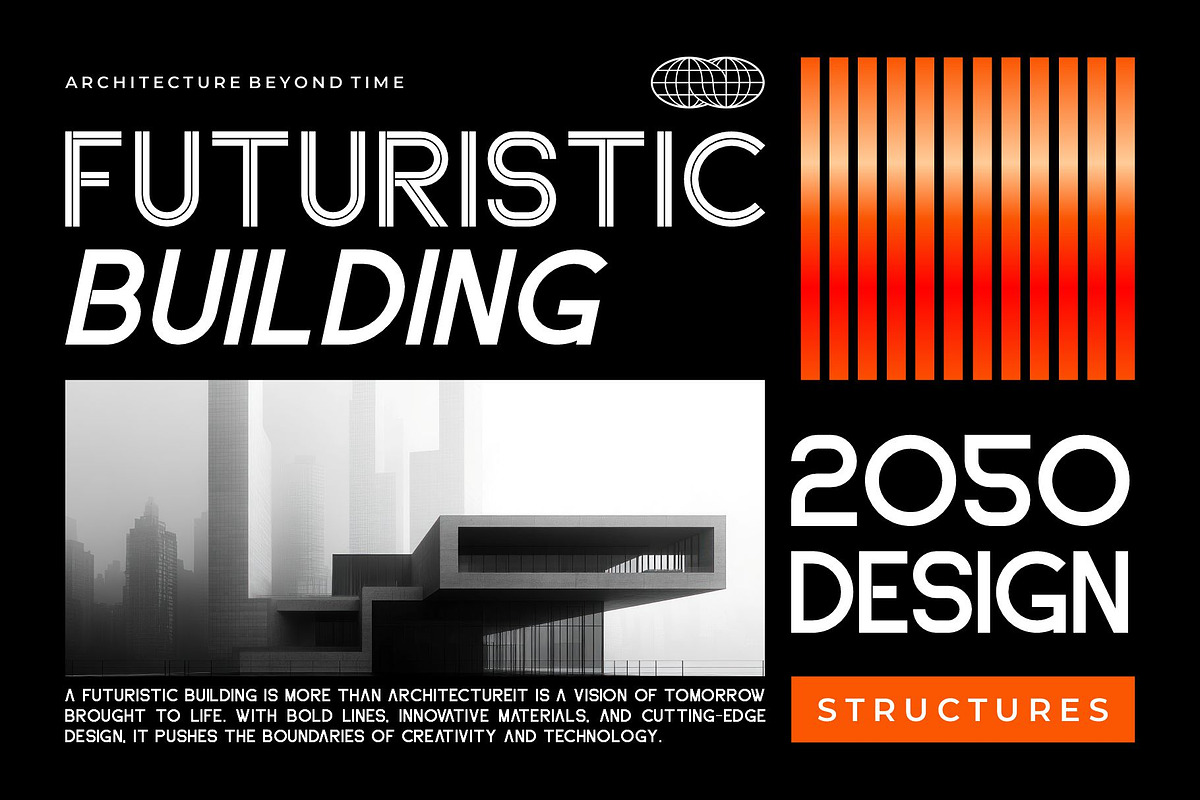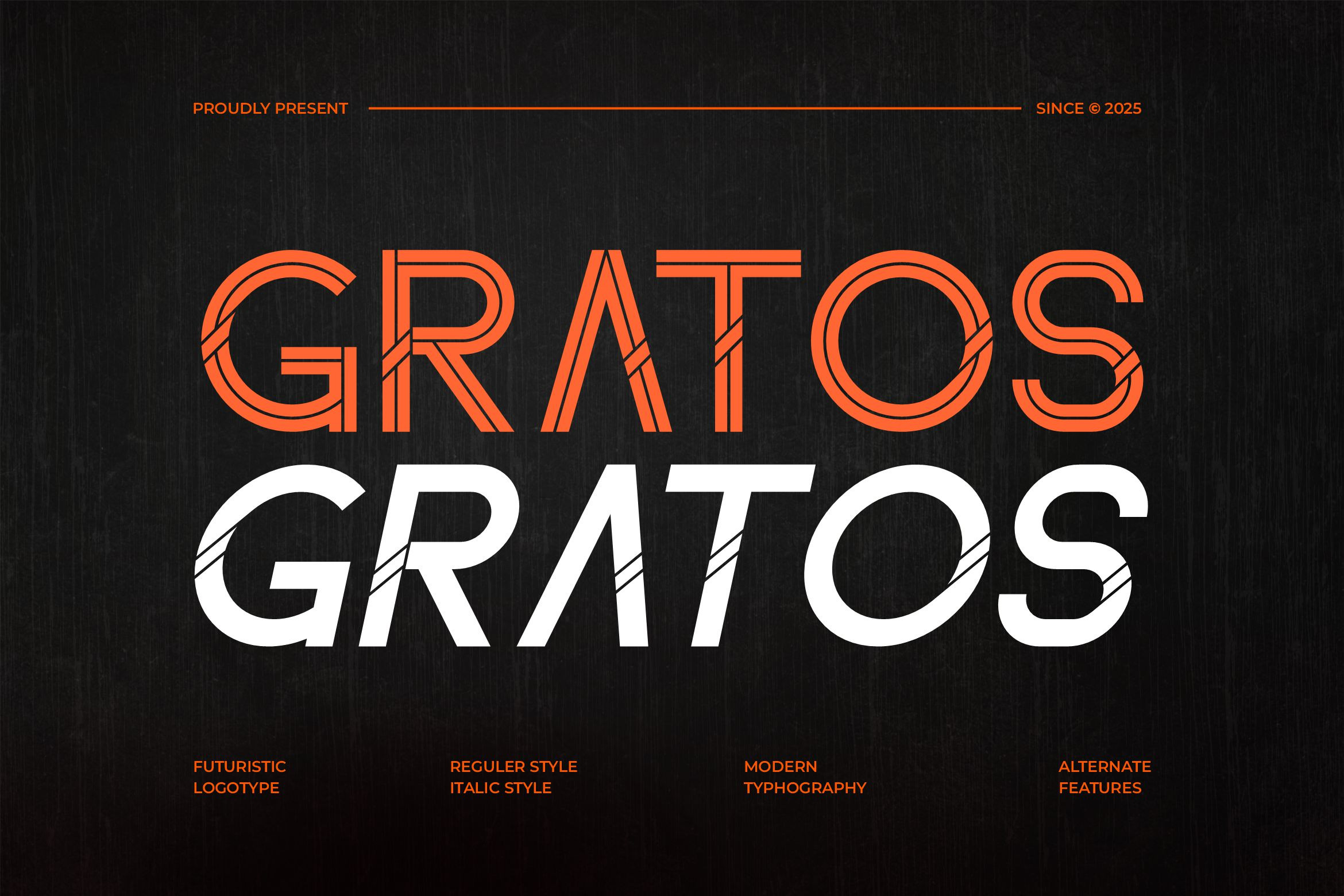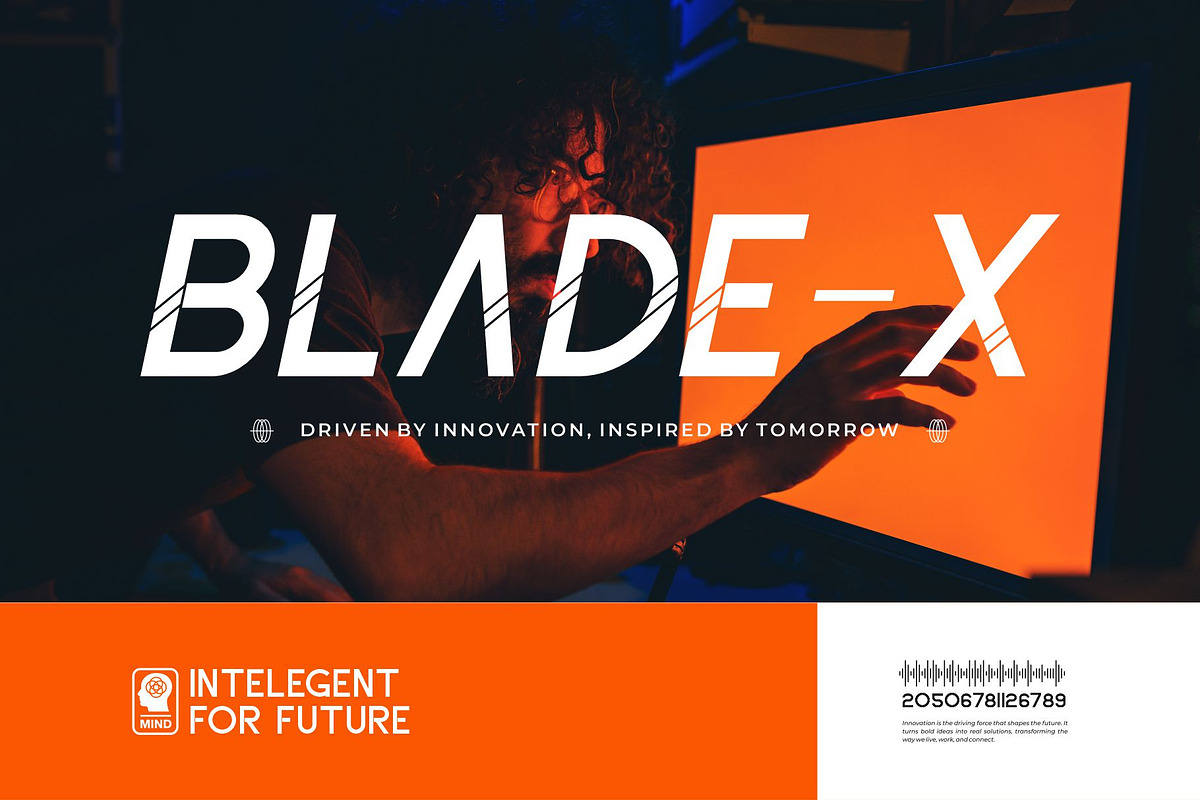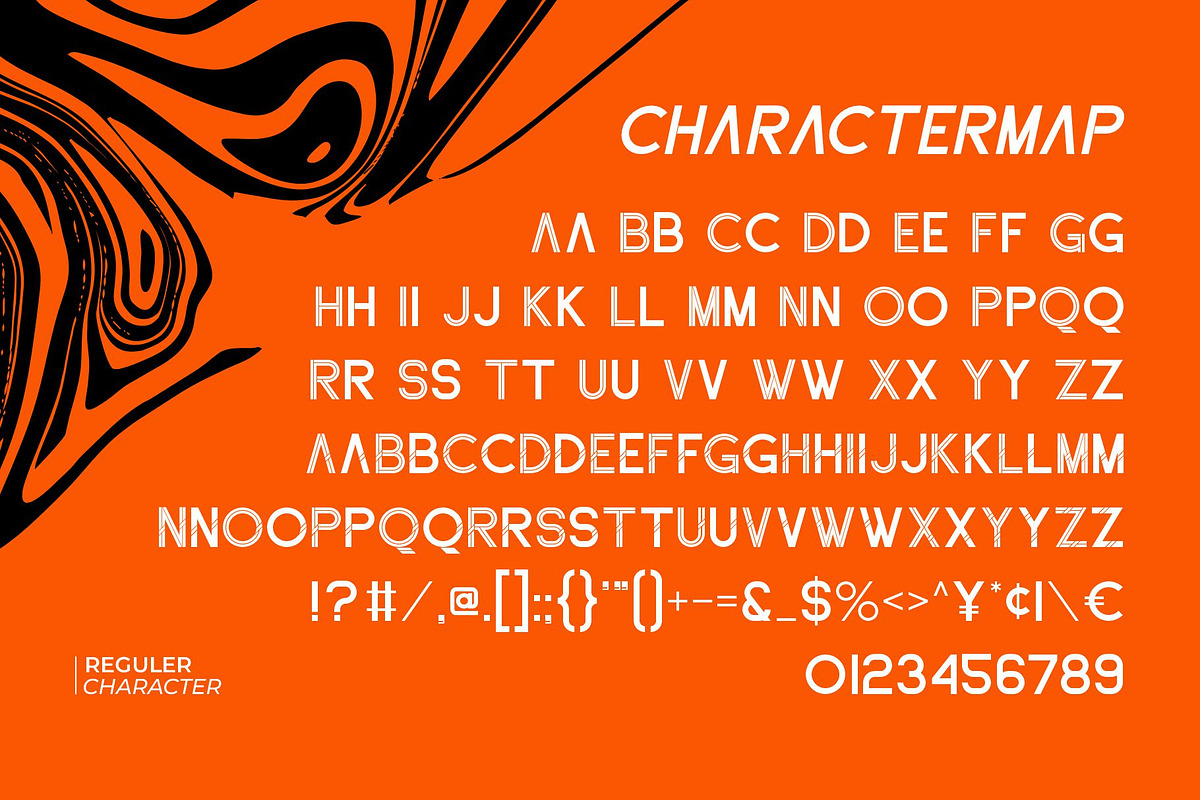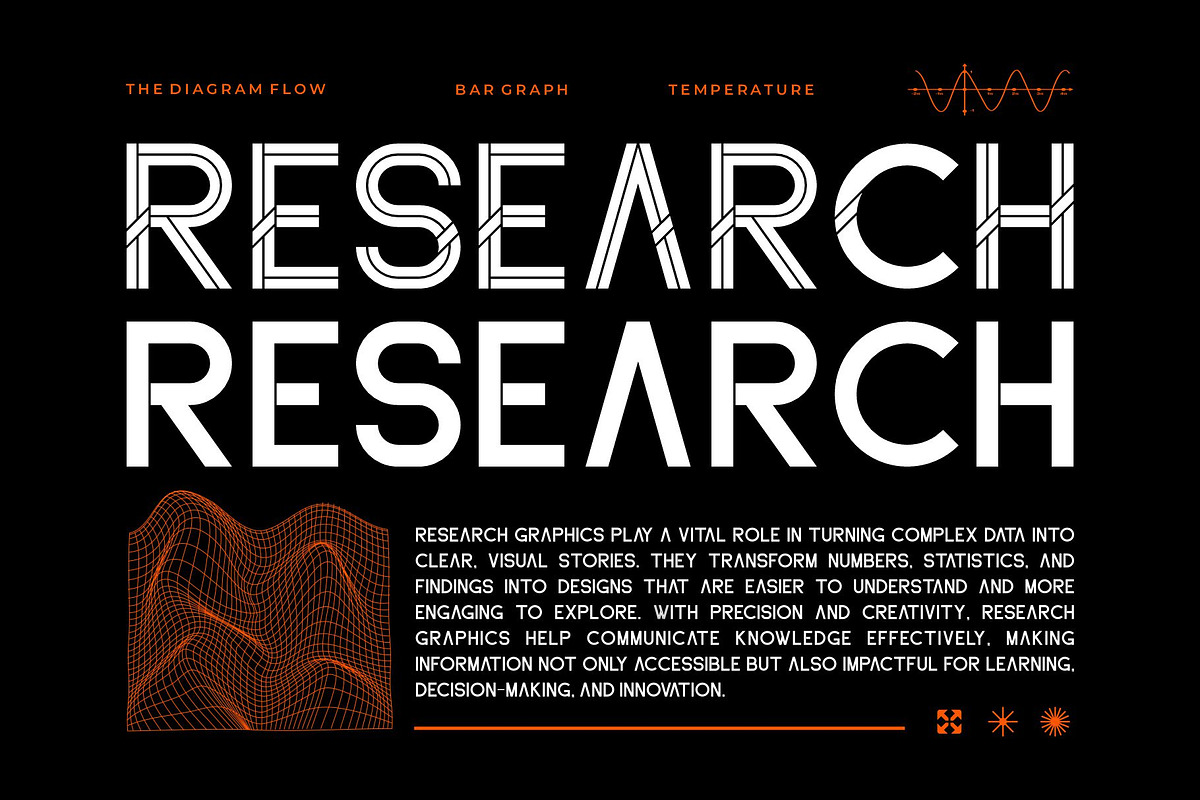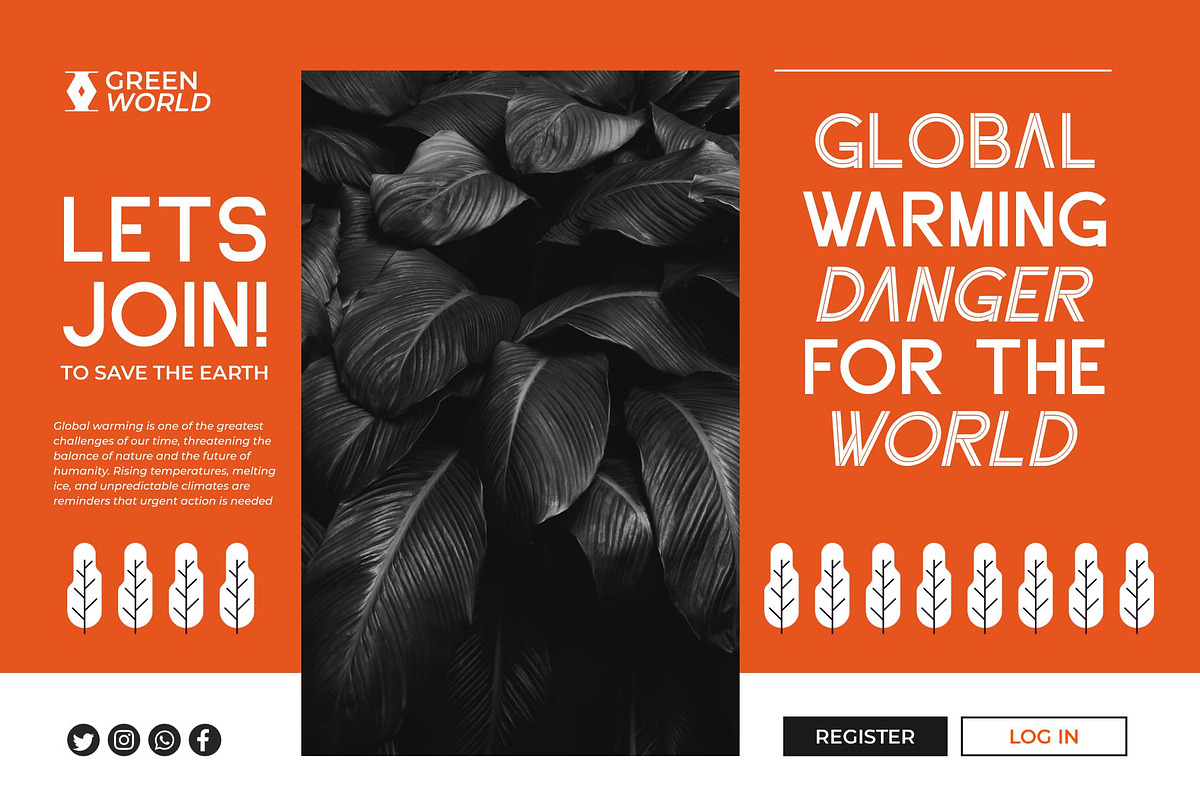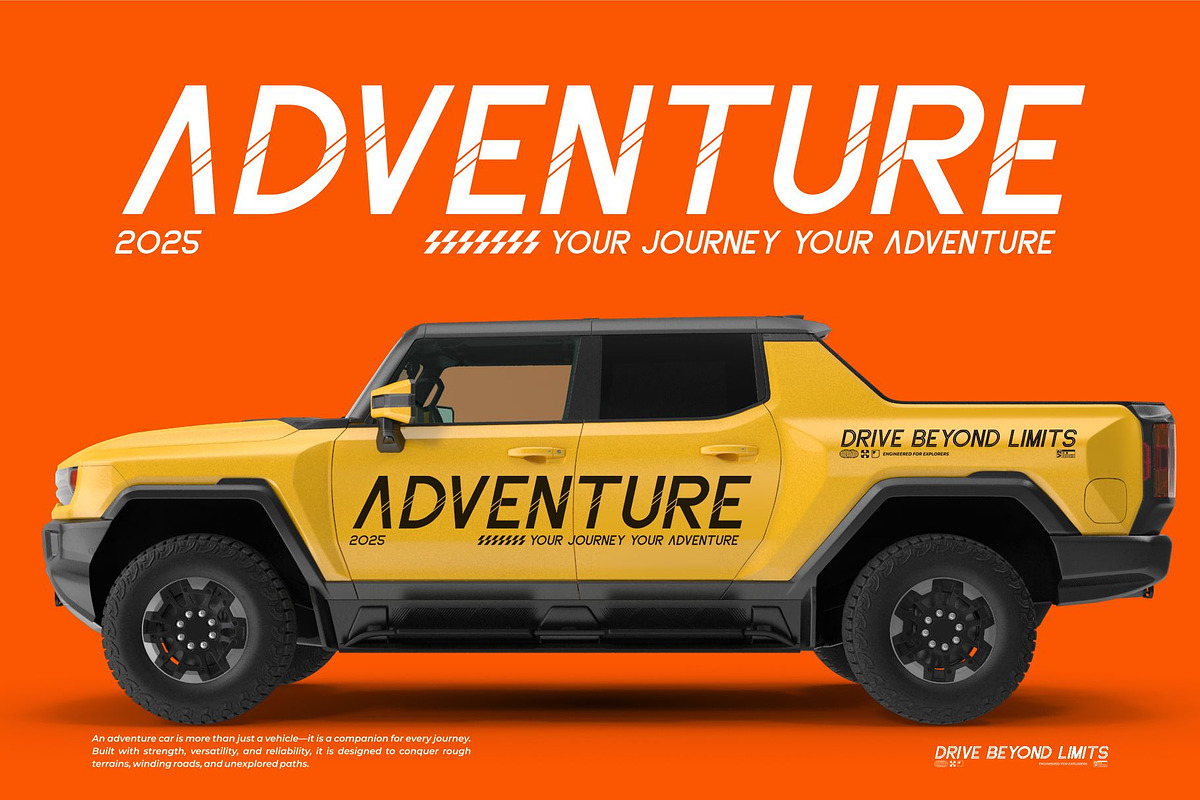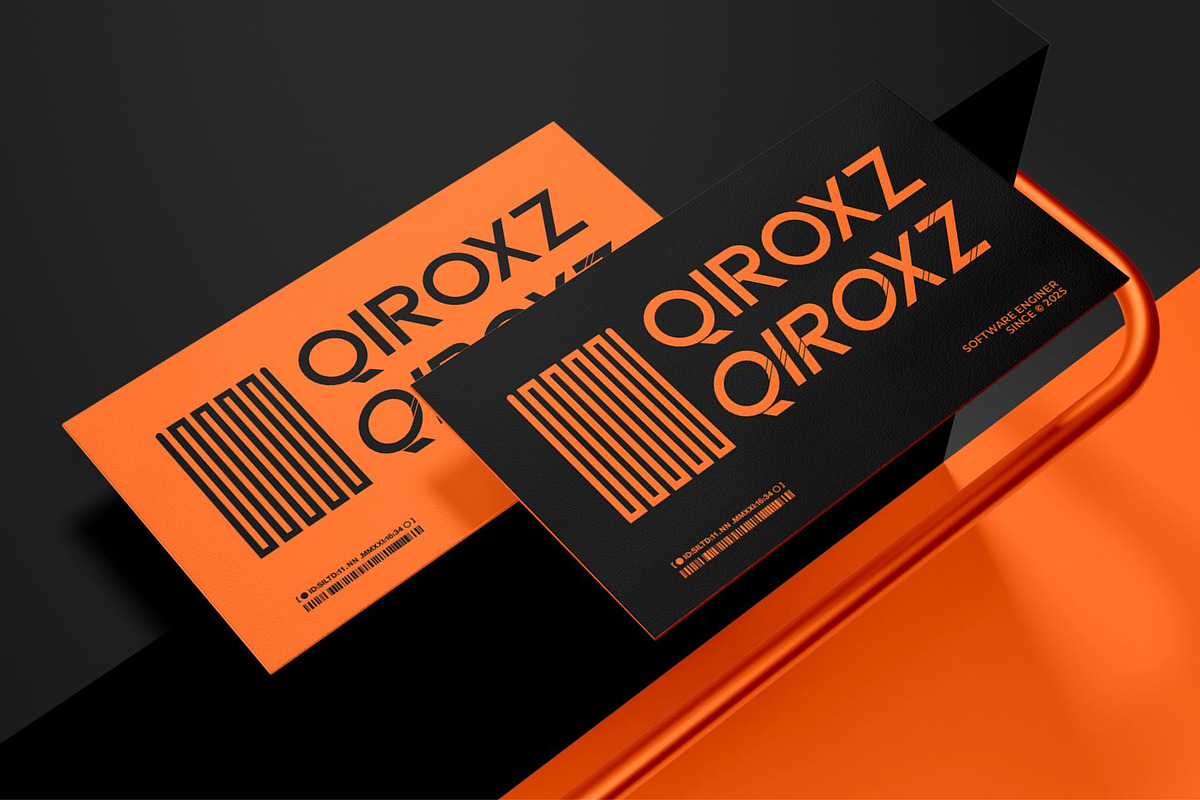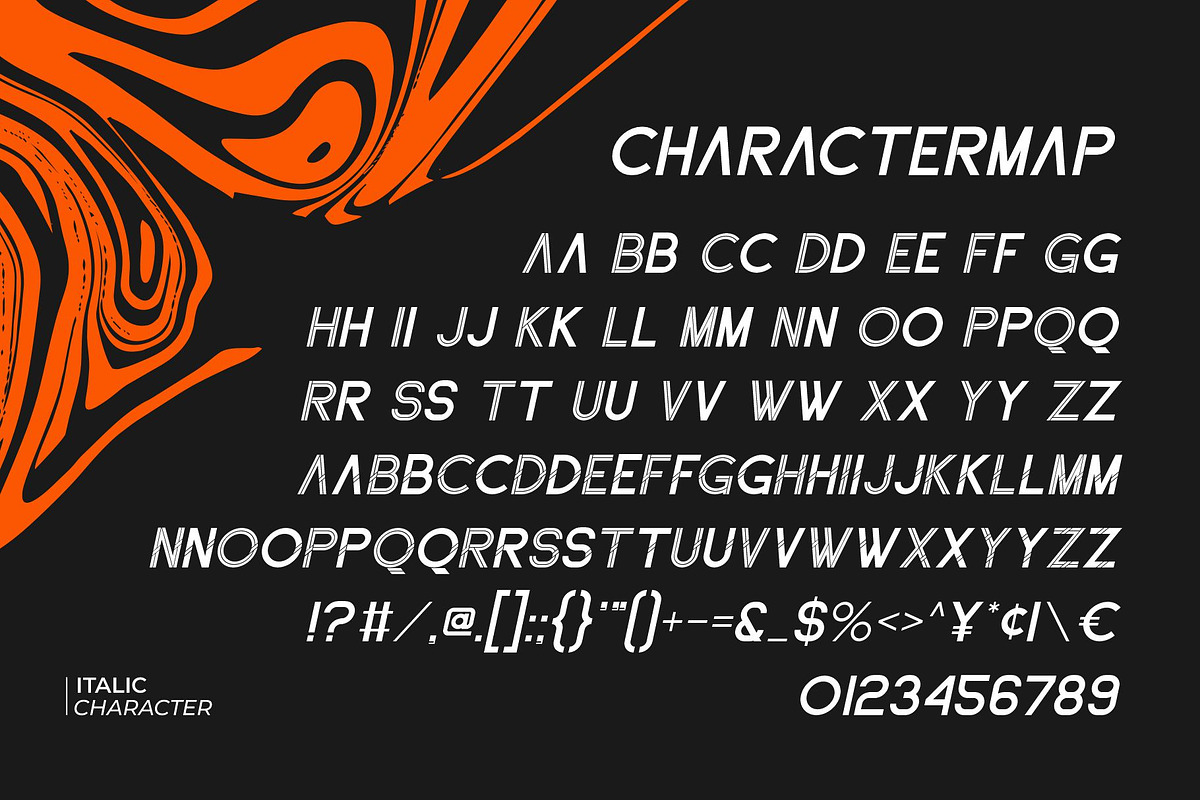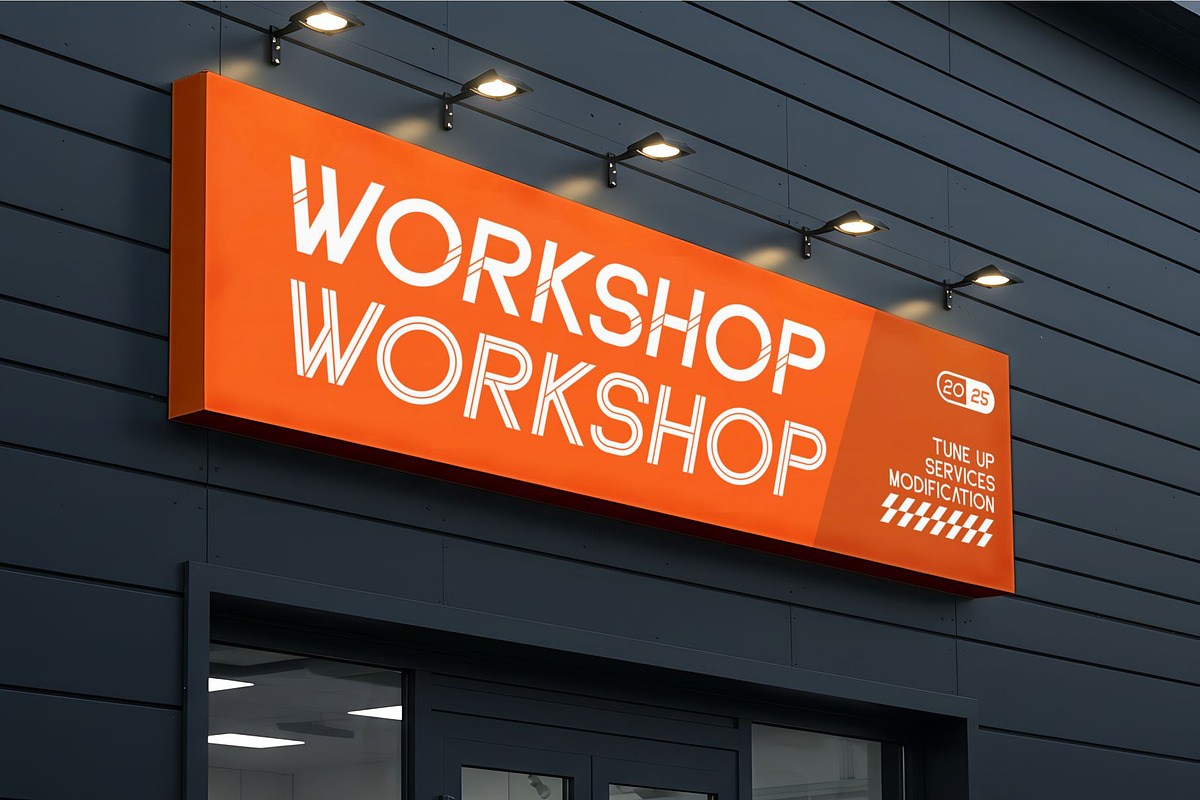
Gratos || Modern Sans Serif Font
Gratos Sans Serif is a modern and cfuturistic font type for all branding and logo designs. This Regular and Italic sans serif font has a beautiful character. This font is suitable for invitation card designs, cool logos, movie titles, movie names, business cards, book titles, brand names, and various other designs. Gratos Sans Serif is a smooth sans serif font that exudes sophistication and the moment. Its stylish alternates make this font a perfect partner for any project. FEATURE : - TTF/OTF - WOFF/WOFF2 - Alternates - Uppercase and lowercase - Numbering and Punctuation - Works on PC or Mac - Simple Installation - Supports Adobe Illustrator, Adobe Photoshop, Adobe InDesign, also works in Microsoft Word Hope you like it. Thank you.